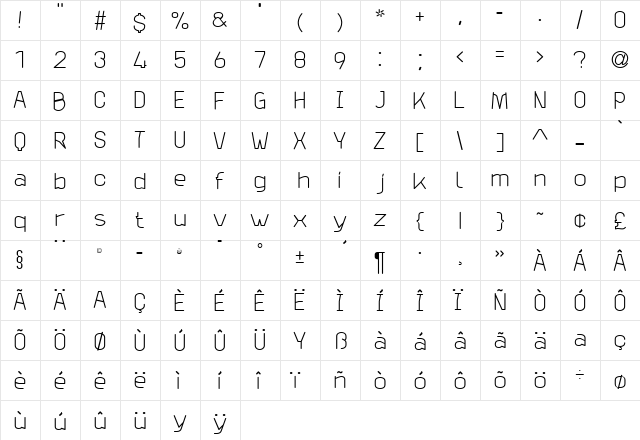
Launderette Regular
Design Context for Launderette Typeface
Launderette is a composed and adaptable typeface that performs quietly and consistently across a wide range of design contexts.